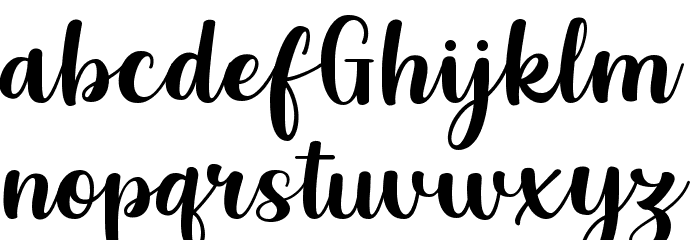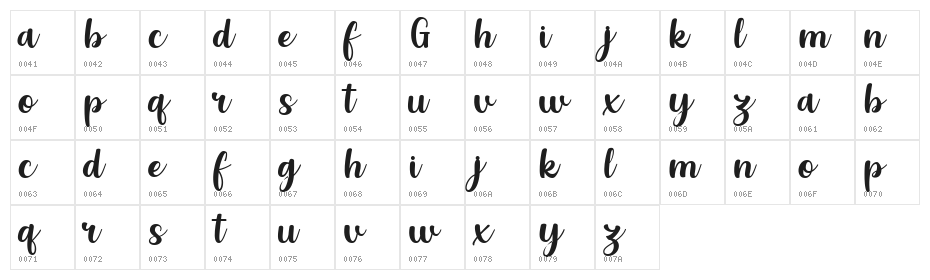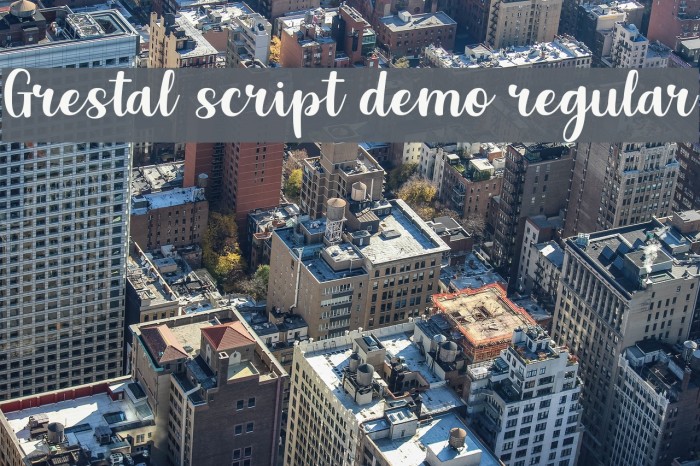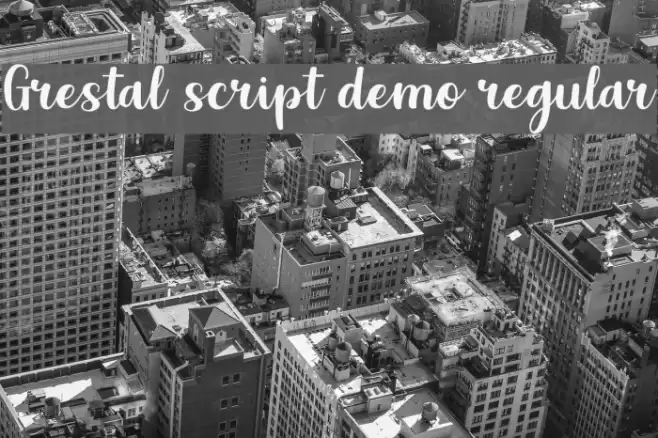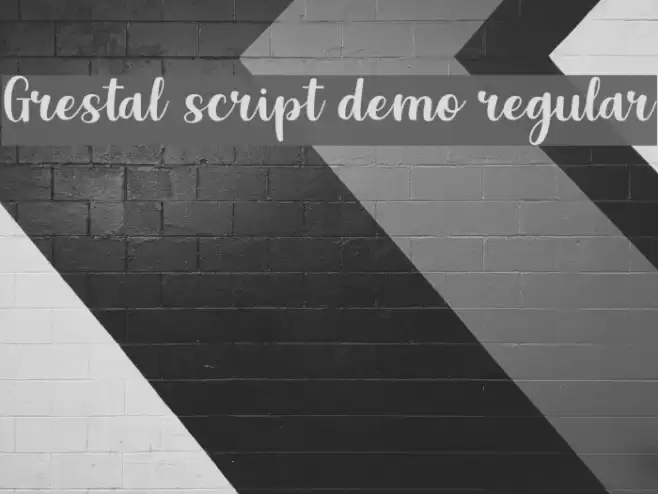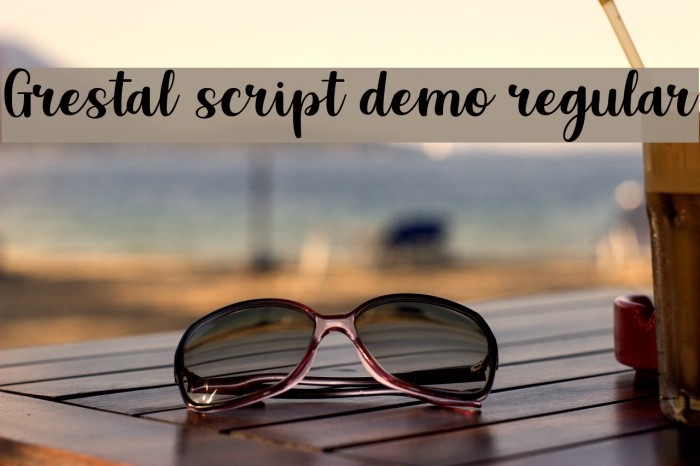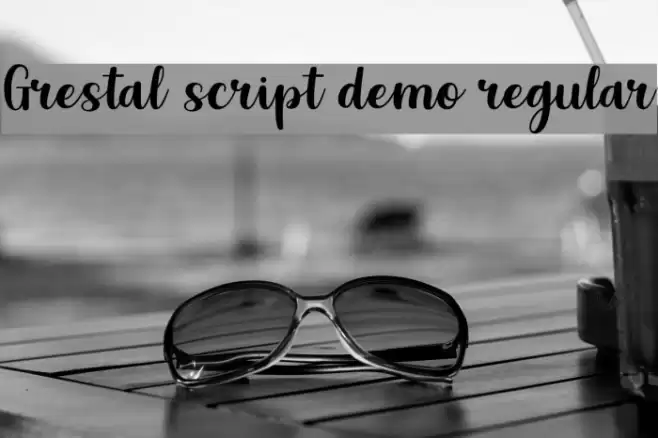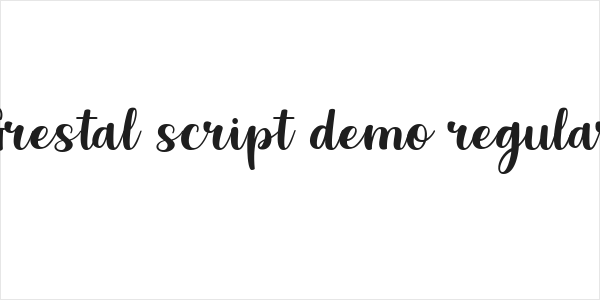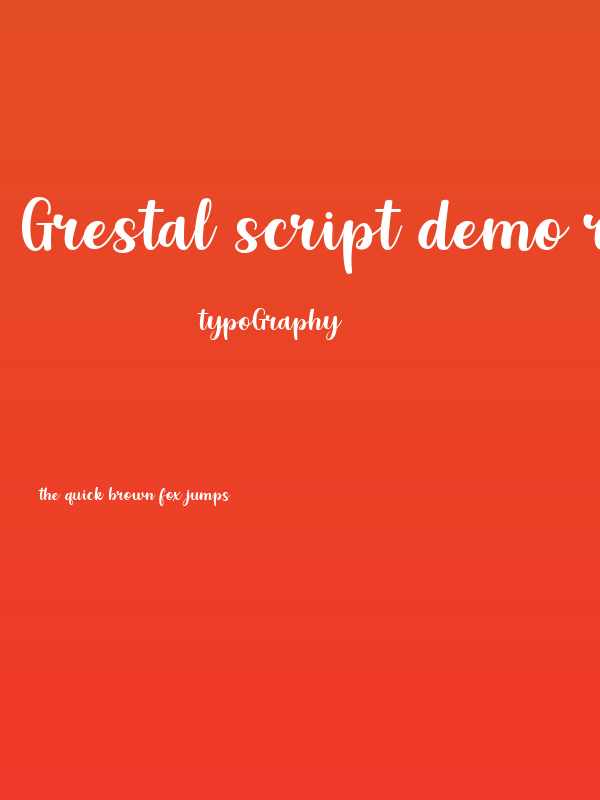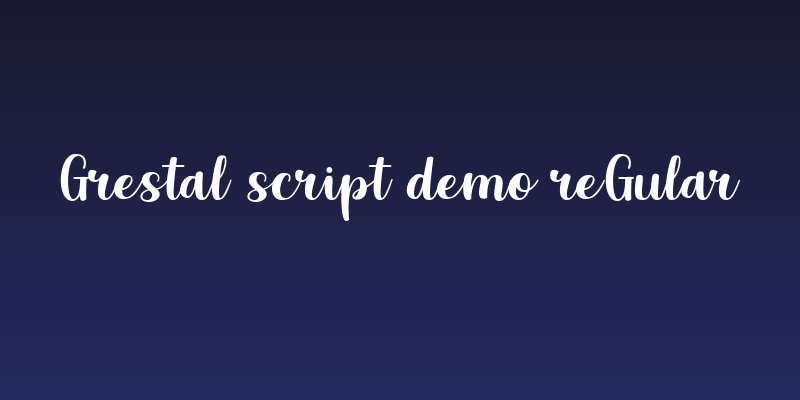
Grestal Script DEMO Regular Font
Grestal Script DEMO Regular Description
This font features a flowing, cursive style with elegant loops and swashes, giving it a handwritten appearance. The characters are connected, creating a seamless and fluid look that is both sophisticated and approachable. The strokes are bold and consistent, providing a strong visual impact while maintaining readability. The font's design is well-suited for creative and expressive projects, offering a sense of warmth and personality. Its script nature makes it ideal for adding a personal touch to various designs, from invitations to branding materials.